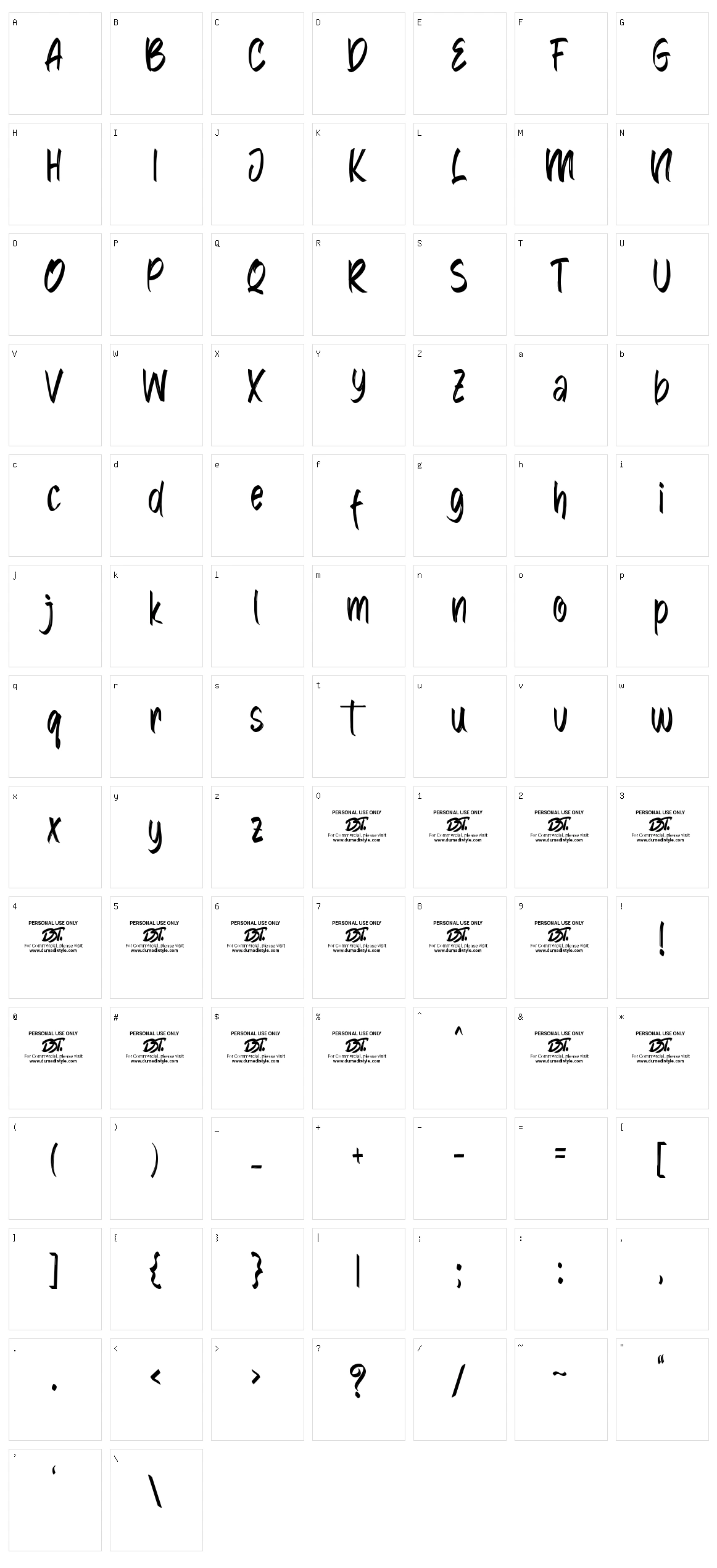
The free font Strange Agent is carefully designed by DumadiStyle, showcasing a thoughtful balance of creativity and usability and falls under the Script font style. When you download the ZIP file, it contains only 4049.74 KB of font files, making it lightweight and quick to download. Please review the license details below to understand permitted usage and distribution rights. If license information is not available, we recommend using this font for personal projects only or contacting the author directly for commercial usage permissions.